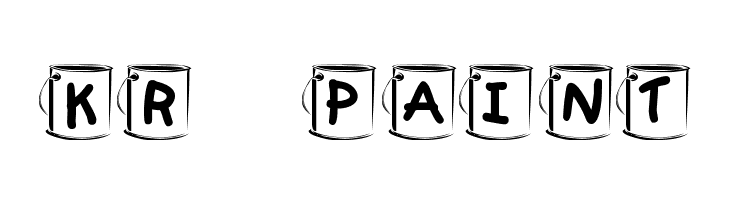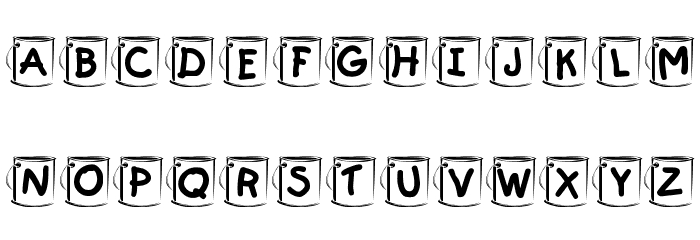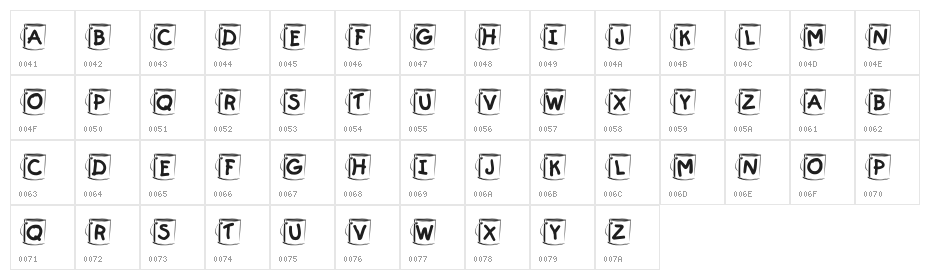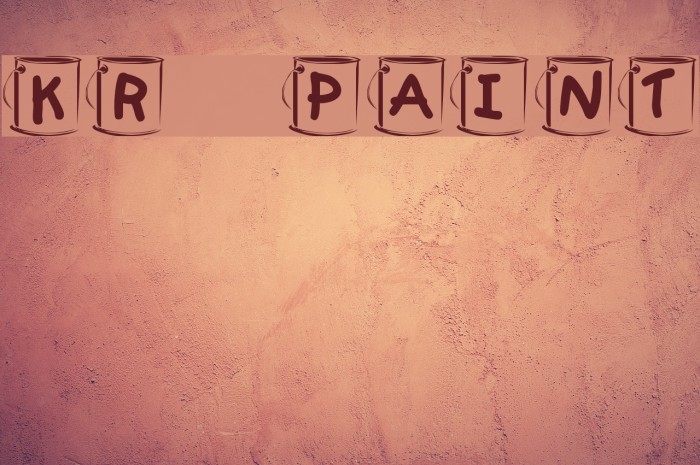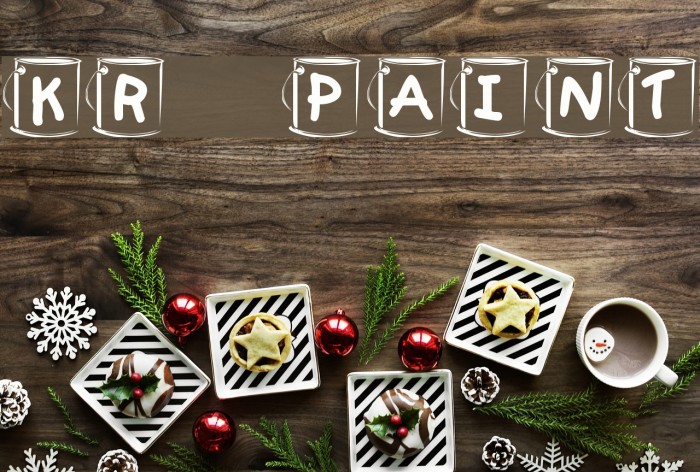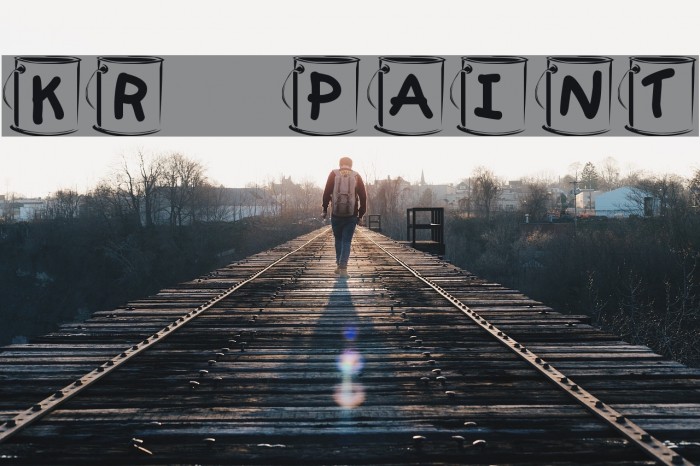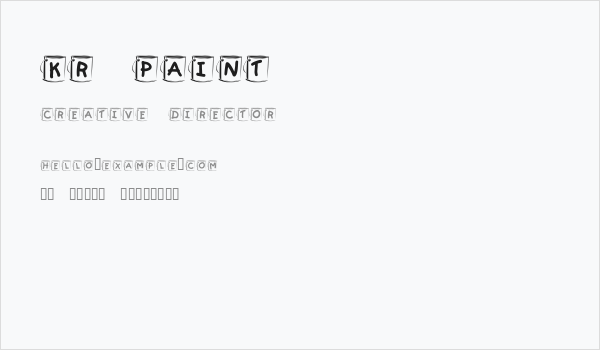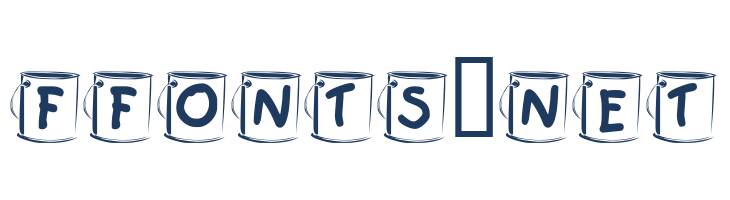
KR Paint Font
KR Paint Description
This playful and artistic font features each character enclosed within a paint can, giving it a unique and creative appearance. The letters are bold and slightly irregular, mimicking the look of hand-painted typography. The design is both whimsical and eye-catching, making it ideal for projects that require a fun and informal touch. The font's distinct style is perfect for artistic endeavors, children's projects, or any design that aims to convey creativity and imagination.
Use CaseHeadlines, Logos, Creative projects
Proposed ProjectsArtistic posters, children's book covers, creative branding, DIY craft labels.